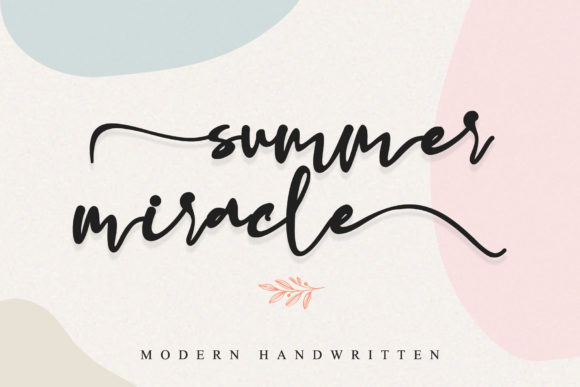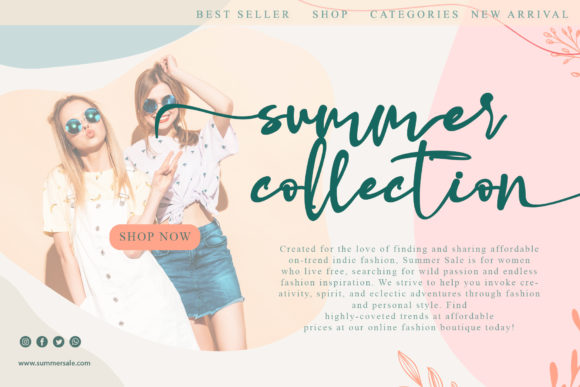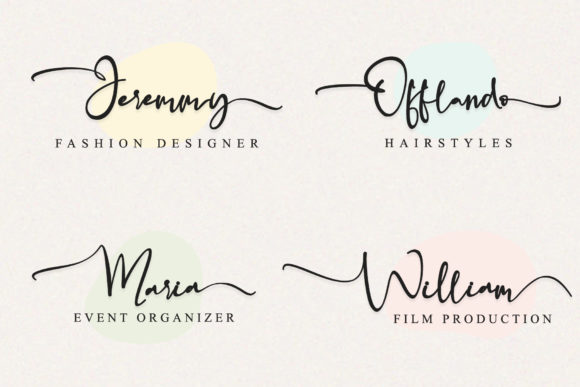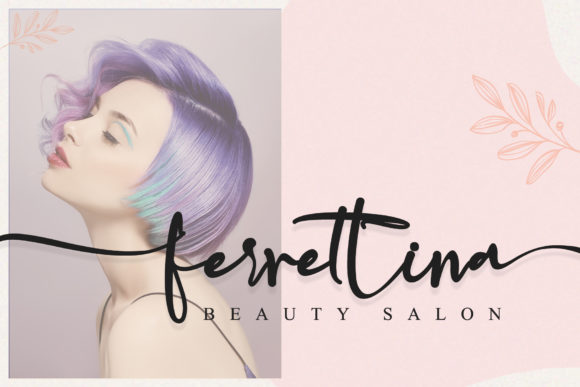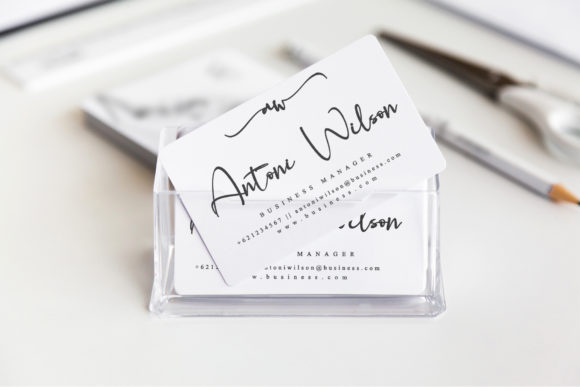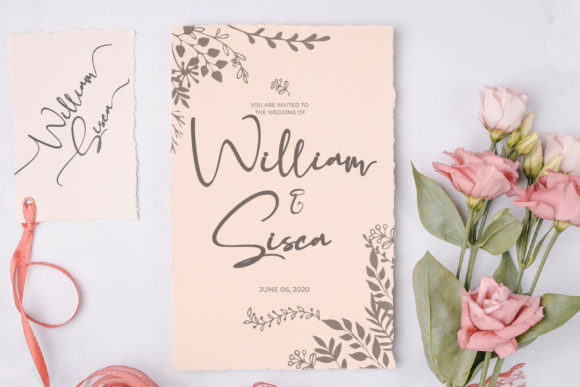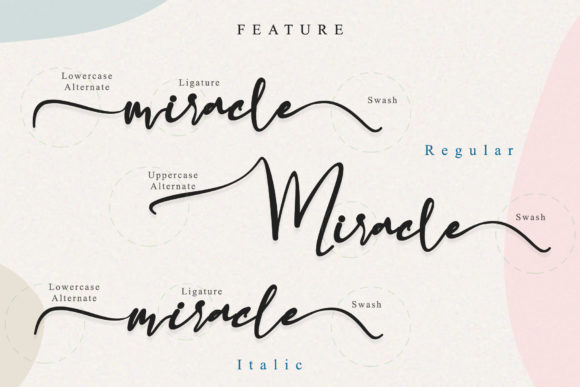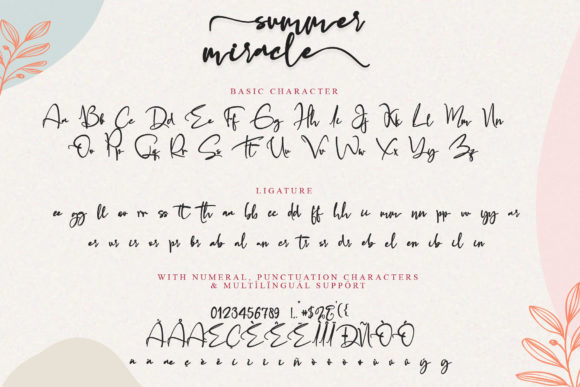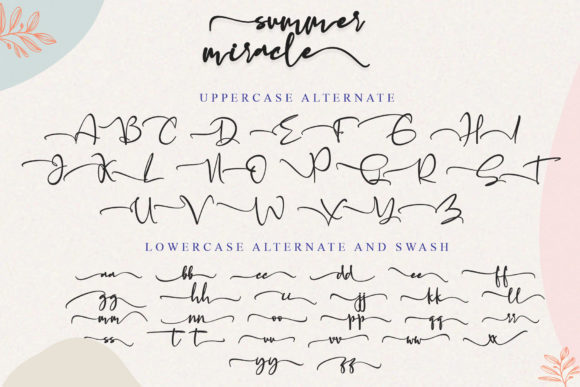
Summer Miracle Font
Summer Miracle is an incredibly modern and sweet handwritten font that will turn any design idea into a true standout! This font is PUA encoded which means you can access all of the glyphs and swashes with ease! It features a varying baseline, smooth lines, gorgeous glyphs and stunning alternates.
Elegant, flowing, and relaxed, the outstanding Summer Miracle font is the right choice, no matter the context!